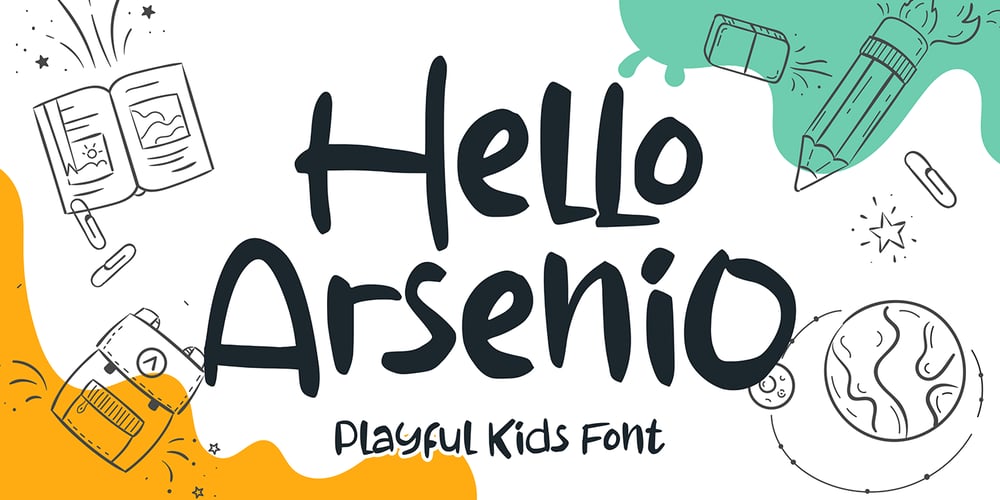
Hello Arsenio Font Family was designed by Icep Anwar Fadhil and published by Figuree Studio. Hello Arsenio contains 1 styles and family package options. Say hello to Hello Arsenio font. Made with love and joy. Kids look, so it will make your design more beautiful, cute, fun, and colorful.